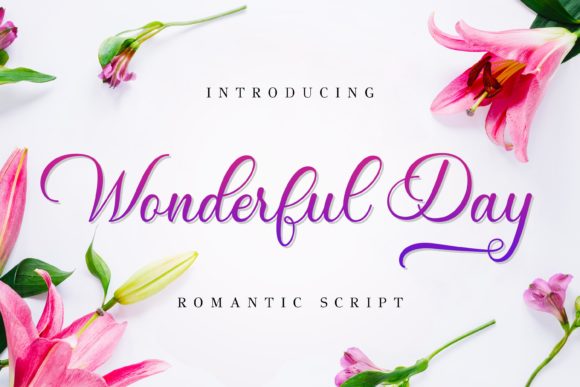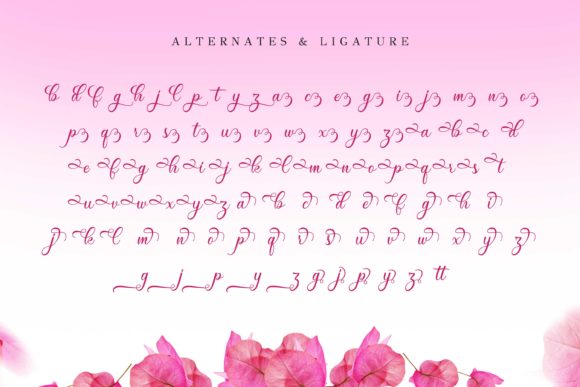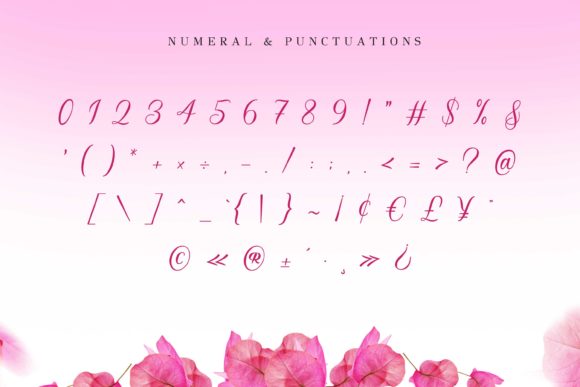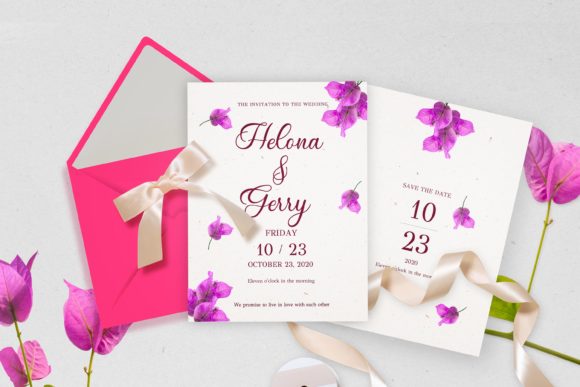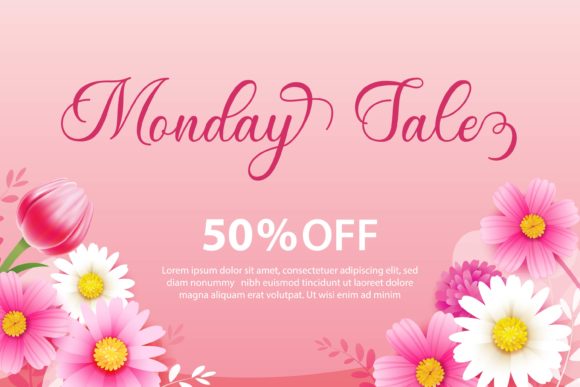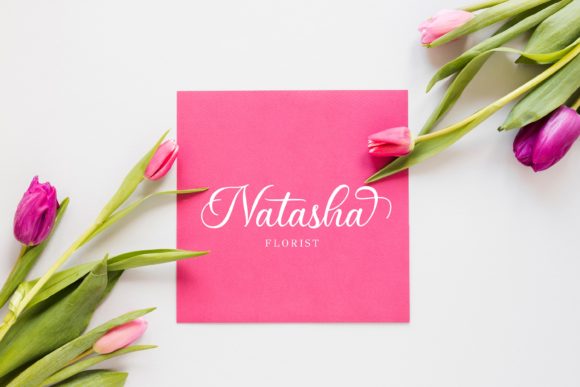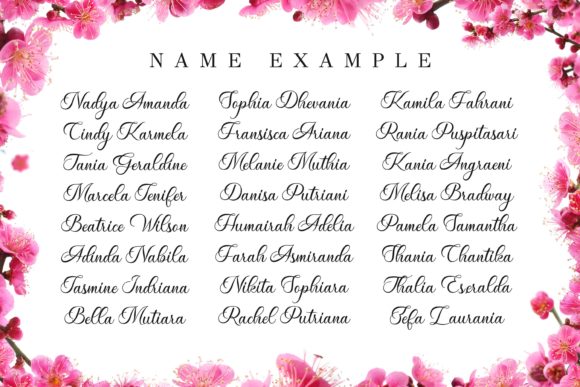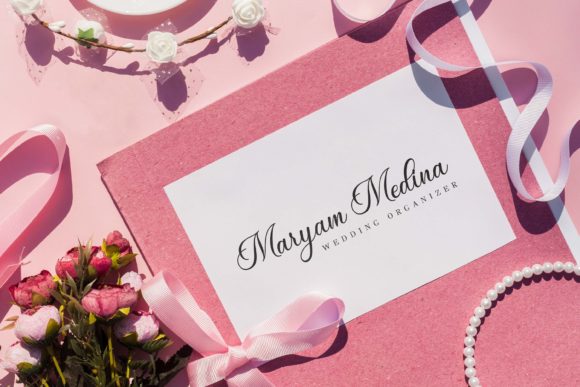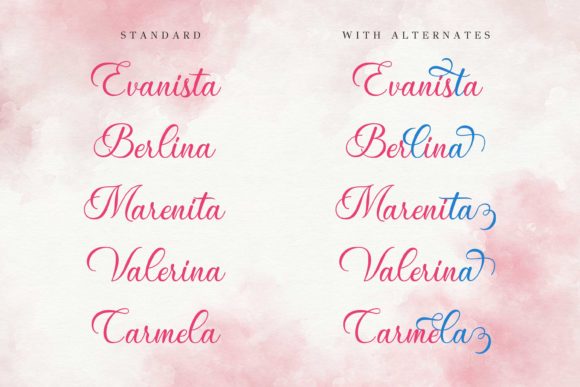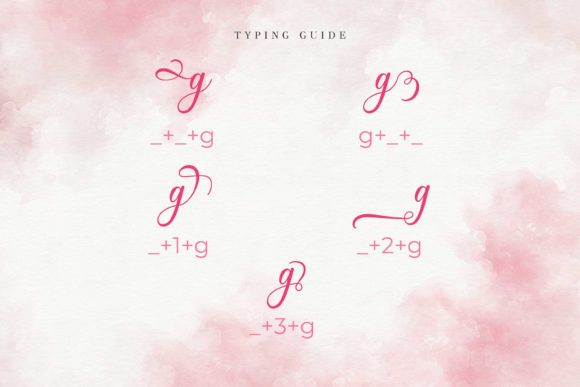
Wonderful Day Font
About Wonderful Day Font
Wonderful Day is a gorgeous script font with a natural feel. It features a varying baseline, smooth lines, gorgeous glyphs and stunning alternates.
Fall in love with its authentic feel and use it to create gorgeous wedding invitations, beautiful stationary art, eye-catching social media posts, and cute greeting cards.